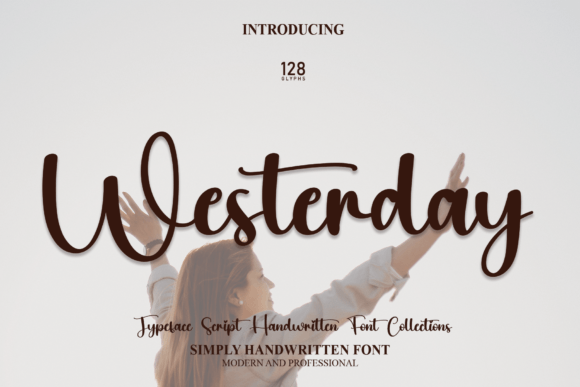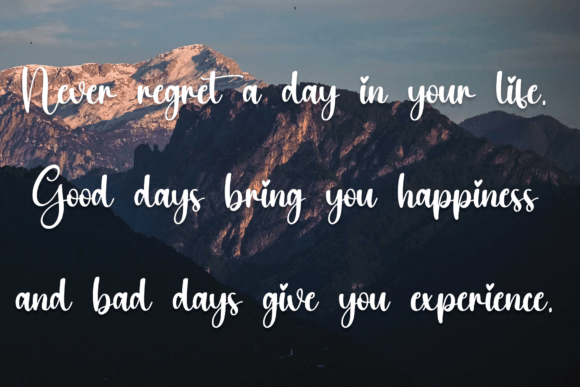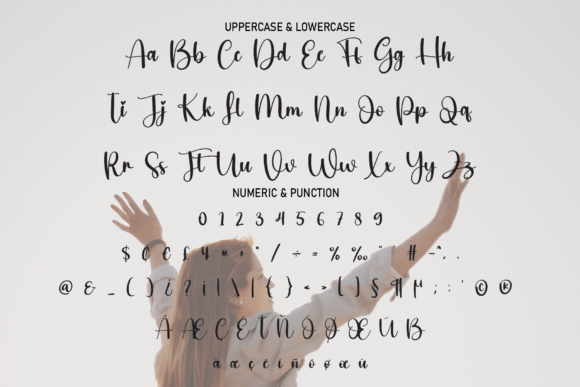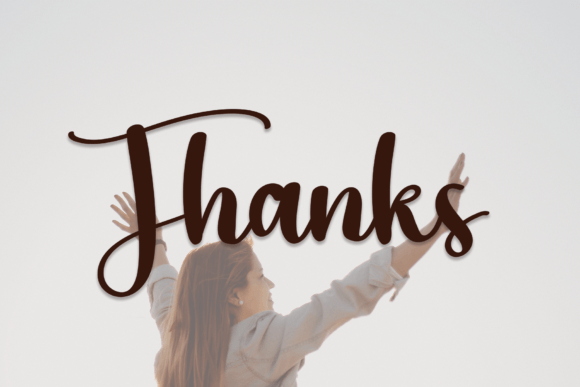
About Westerday Font
“Westerday” is not just a font; it’s a stylish handwritten typeface that exudes a contemporary atmosphere with impeccable form. Drawing inspiration from timeless classic calligraphy, “Westerday” offers a balanced and varied design. Its thoughtful crafting was specifically aimed at enhancing the beauty of your projects, making it a versatile and visually appealing choice.
Stylish Handwritten Design: The term “stylish” suggests that “Westerday” brings a sense of fashion and elegance to its handwritten design. This stylish quality makes it suitable for a range of design projects where a contemporary and visually appealing aesthetic is desired.
Contemporary Atmosphere: The contemporary atmosphere of “Westerday” positions it as a font that aligns with modern design trends. Whether used for branding, posters, or other creative applications, the font ensures that it contributes to a current and relevant visual language.
Impeccable Form: The emphasis on impeccable form highlights the attention to detail in the crafting of “Westerday.” Each letter is carefully shaped to ensure clarity and precision, enhancing the overall visual impact of the font.
Inspired by Timeless Classic Calligraphy: The connection to timeless classic calligraphy adds a touch of tradition and sophistication to “Westerday.” This inspiration serves as a bridge between the traditional art of calligraphy and a contemporary design approach, resulting in a font with a timeless appeal.
Balanced and Varied: The balance and variety in “Westerday” make it a versatile choice for a wide range of projects. The font is designed to maintain a harmonious equilibrium while offering variations that keep the design visually interesting and dynamic.
Enhancing the Beauty of Projects: The overarching goal of “Westerday” is to enhance the beauty of your projects. Whether you’re working on invitations, branding, or any creative endeavor, the font becomes a design element that elevates the overall aesthetic, contributing to the beauty of the final outcome.
In summary, “Westerday” is more than just a font; it’s a design tool that brings a stylish and contemporary handwritten aesthetic to your projects. With impeccable form, inspiration from classic calligraphy, and a focus on enhancing beauty, “Westerday” becomes a valuable asset for designers seeking a versatile and visually appealing typeface for their creative endeavors.